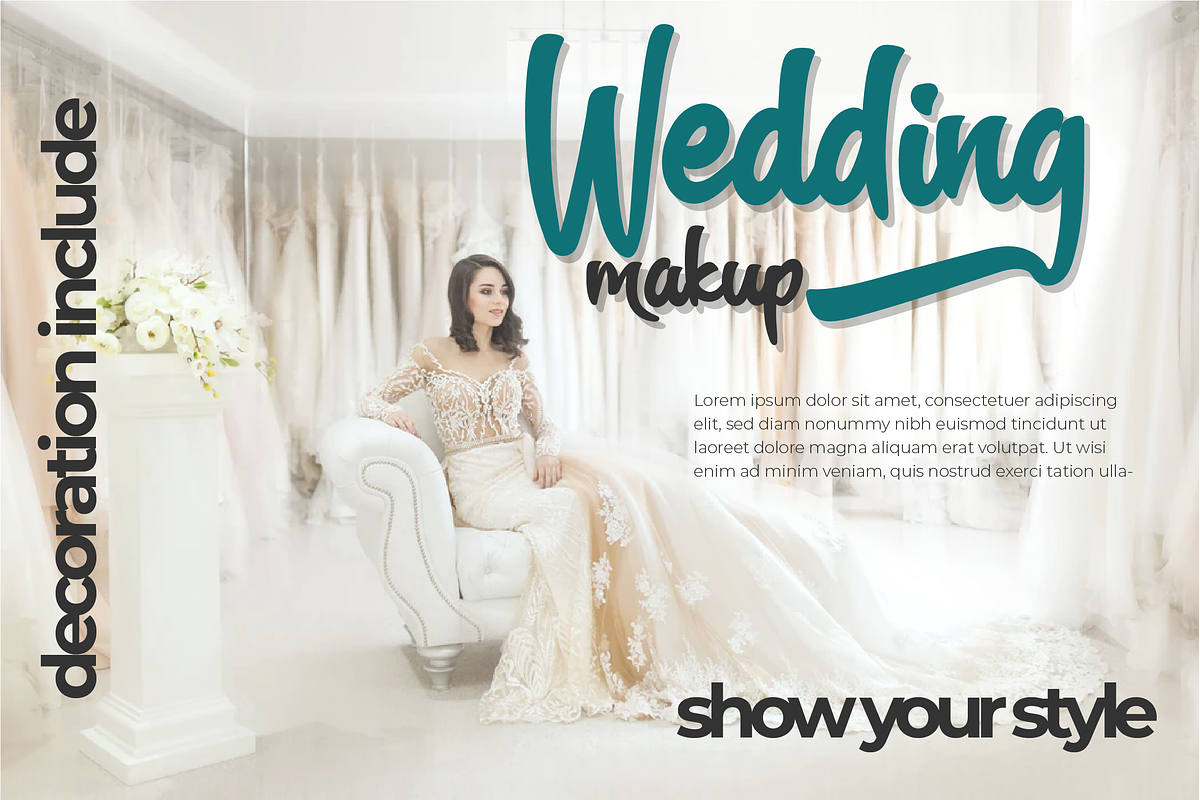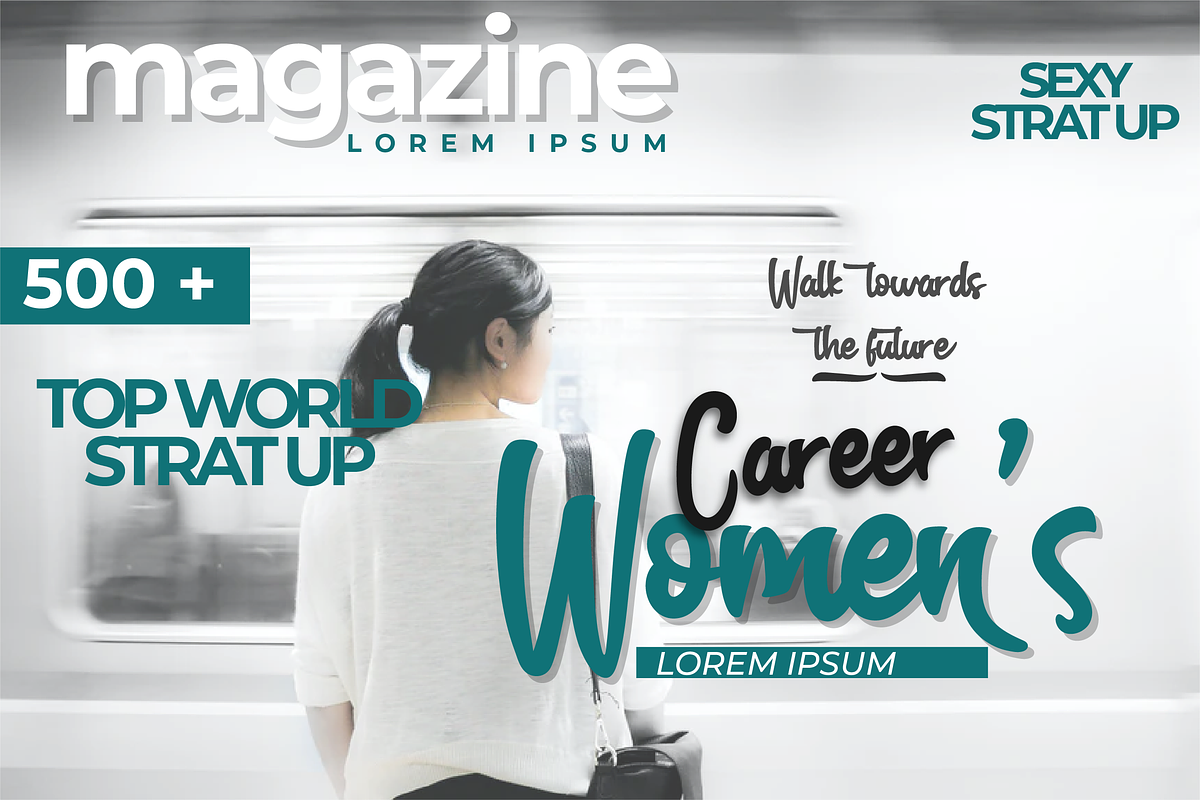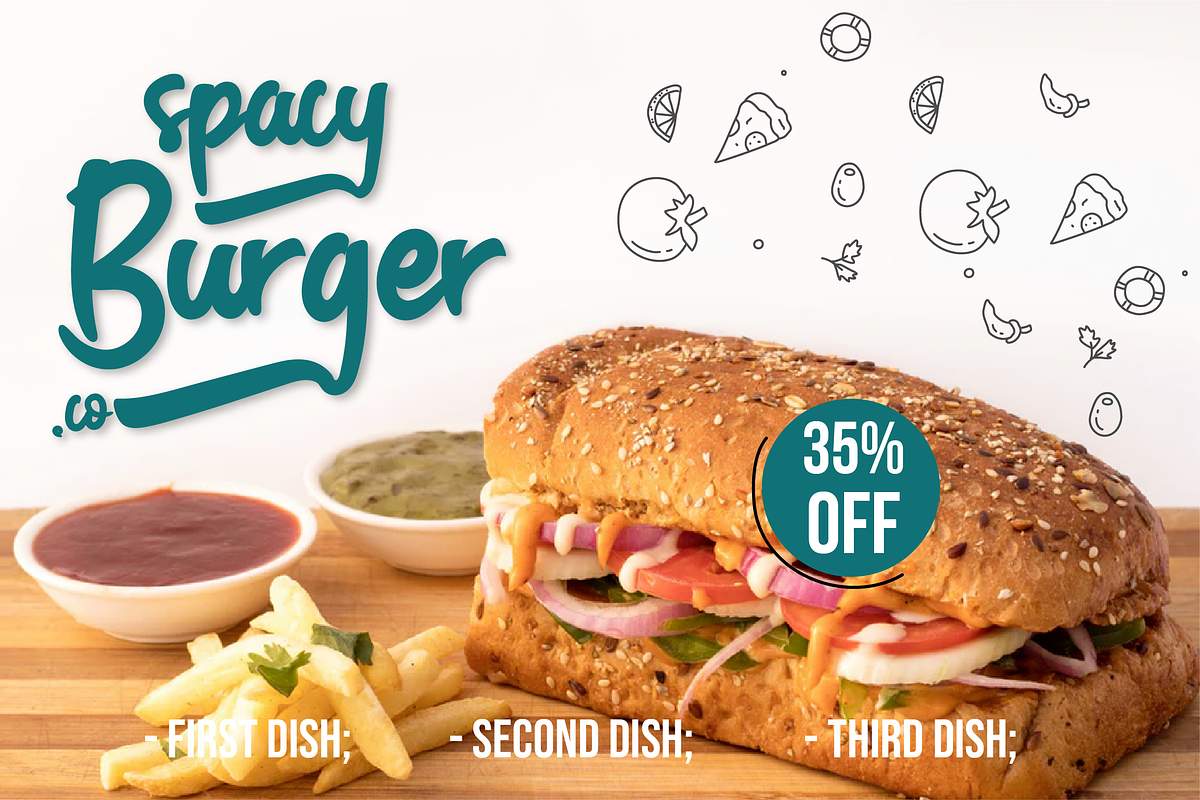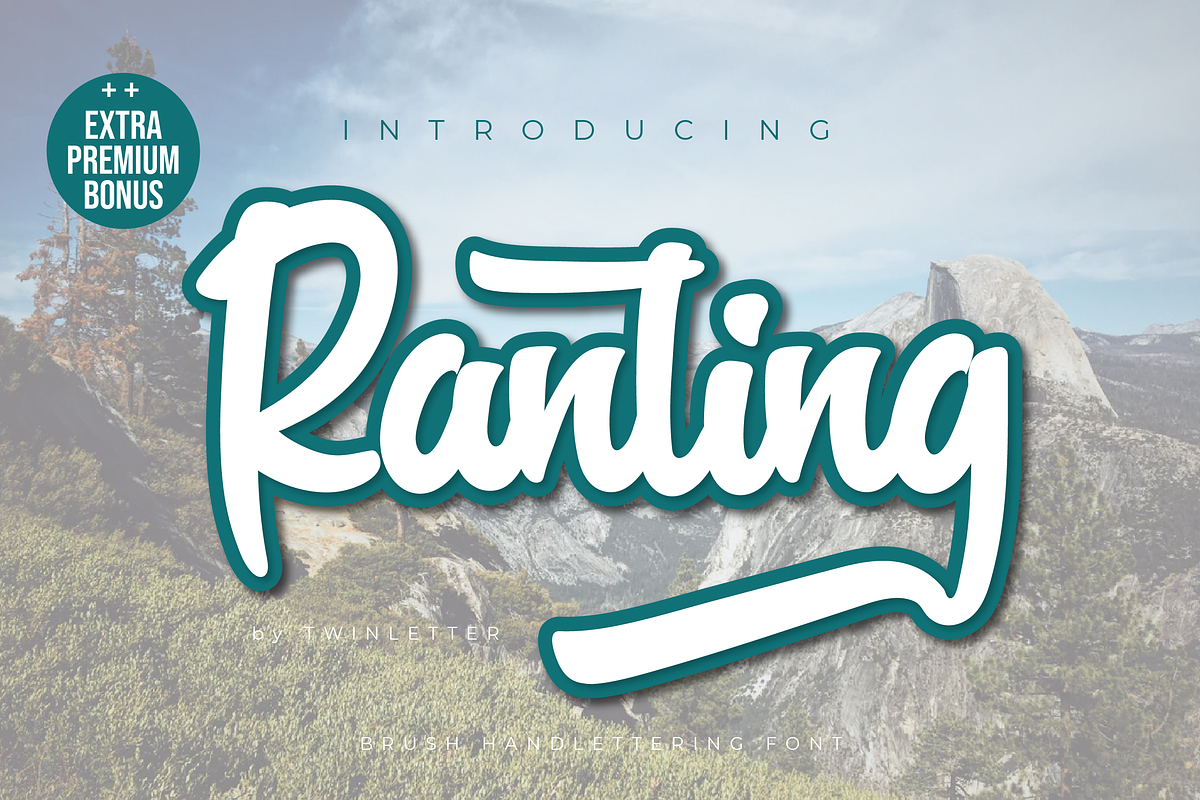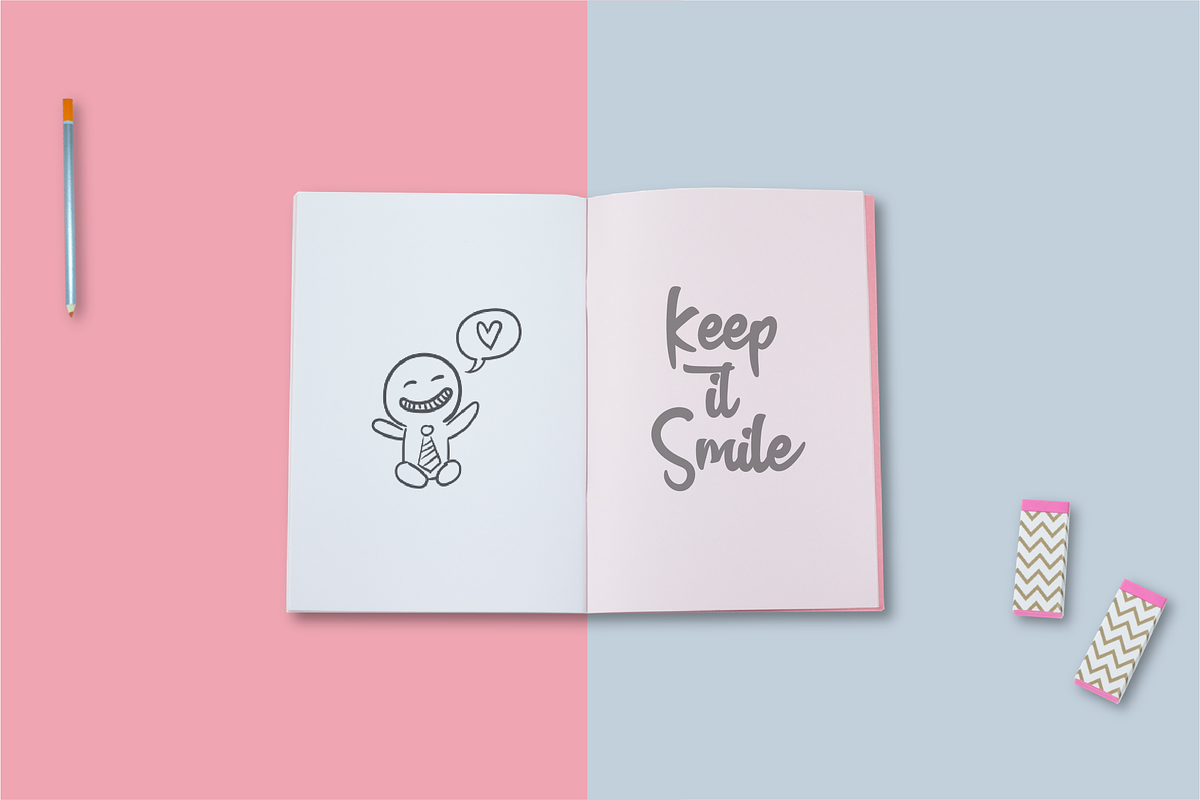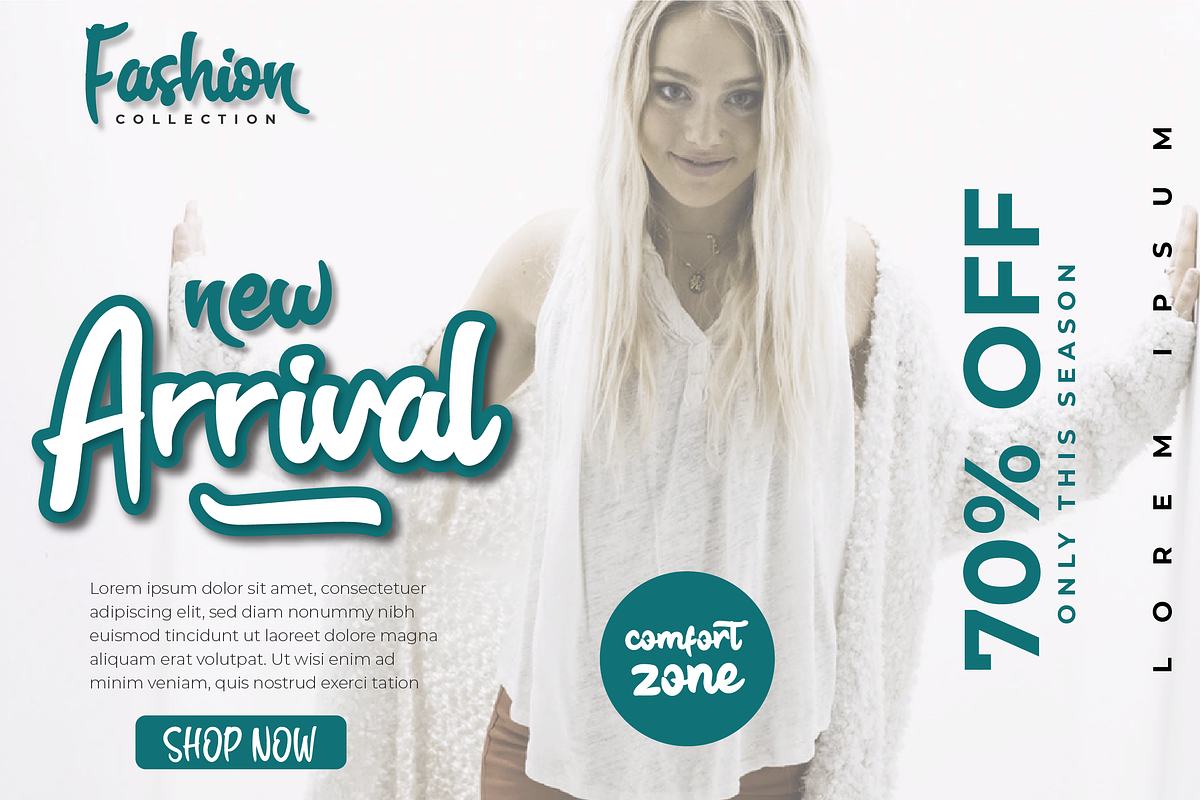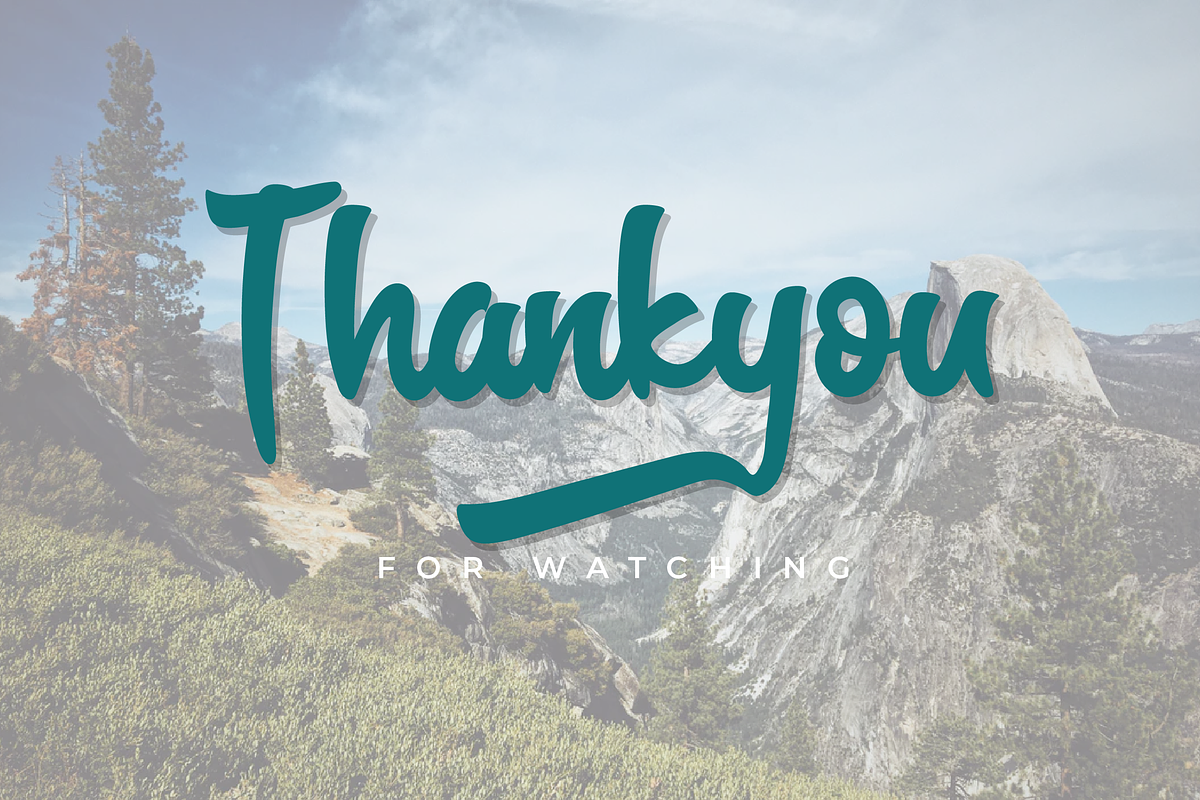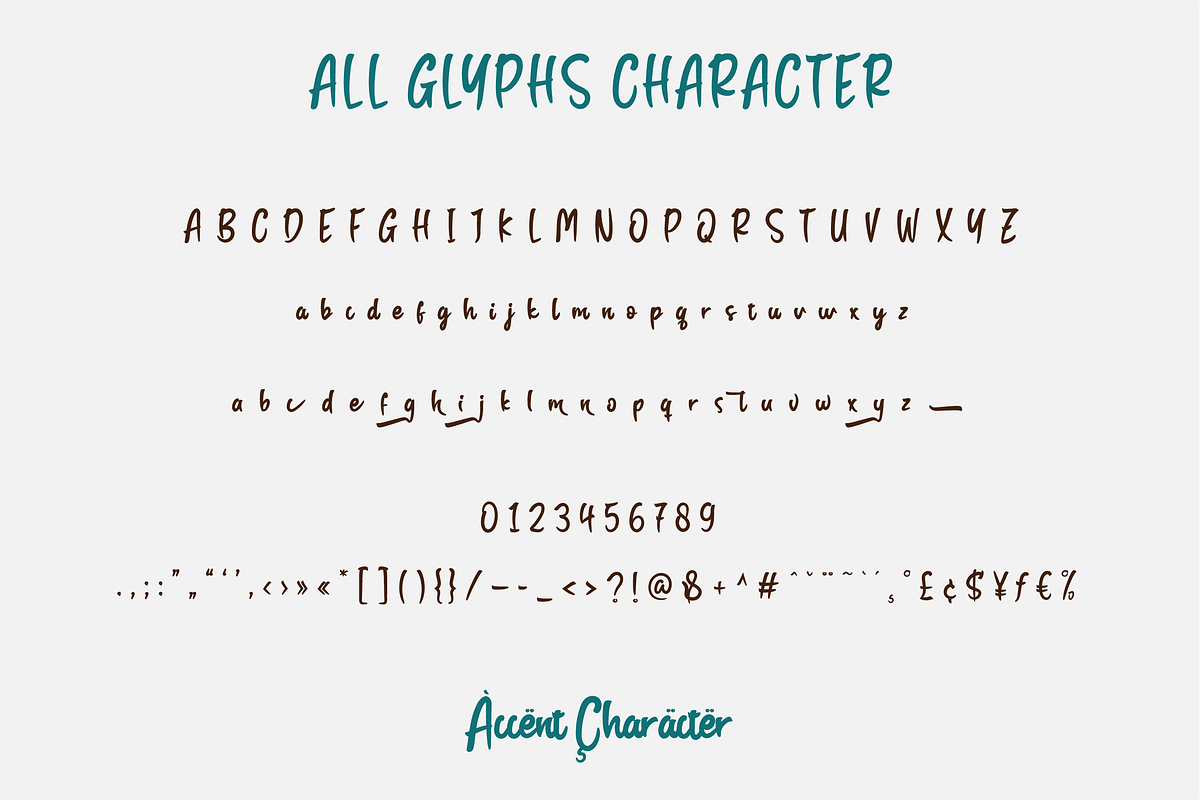
Ranting
Introducing our newest Ranting.
This font is made with original hand-drawn strokes for a relaxed, beautiful, and elegant feel.
This font also offers beautiful abstract typographic harmony for a wide variety of design projects, including natural handwriting in digital form for designs, Quote designs, for social media business designs, advertisements, trademark brands, promotional banners, lettering, posters, signatures, and all designs requiring handwriting or whatever design you want. Start creating awesome designs with this font!
This charming font also offers the beauty of abstract typography harmony for a wide variety of design projects, including digital natural handwriting for designs, quote designs, for social media business designs, advertisements, trademarks, food and beverage promotion banners, text, posters, a signature, and all designs require handwriting or whatever design you want.